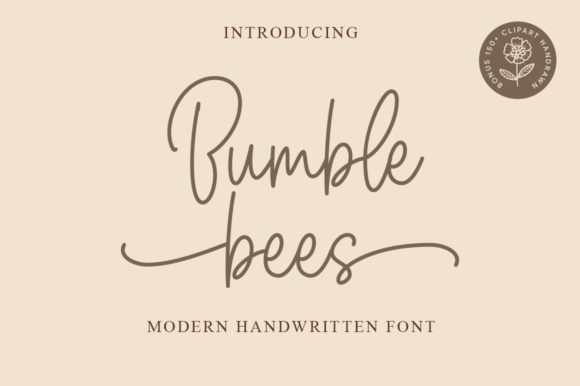
Dive into the world of Bumble Bees Font - a whimsical and enchanting handwritten font that captures the essence of a blooming flower shop. Crafted by the ingenious Graphix Line Studio, this font exudes a touch of elegance and charm, making it the ideal choice for those seeking a font that speaks volumes.
With its delicate strokes and flowing curves, Bumble Bees Font encapsulates the essence of a handwritten note, adding a personal touch to your designs. Its charmingly imperfect nature lends an air of authenticity, making it perfect for creating invitations, greeting cards, and logos that evoke a sense of nostalgia and warmth.
Embrace the beauty of nature with Bumble Bees Font, a font inspired by the delicate petals of flowers and the gentle buzz of bees. Its graceful swashes and elegant letterforms dance across the page, creating a visual masterpiece that is sure to captivate and inspire.